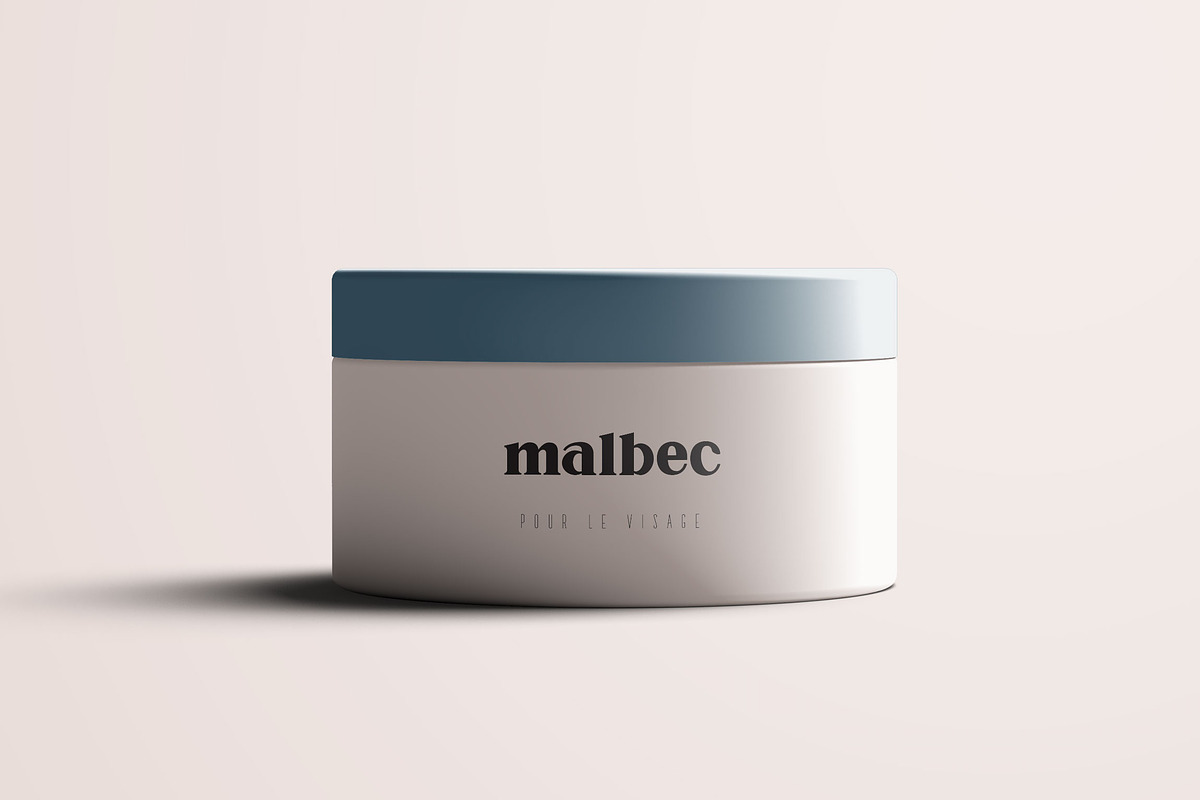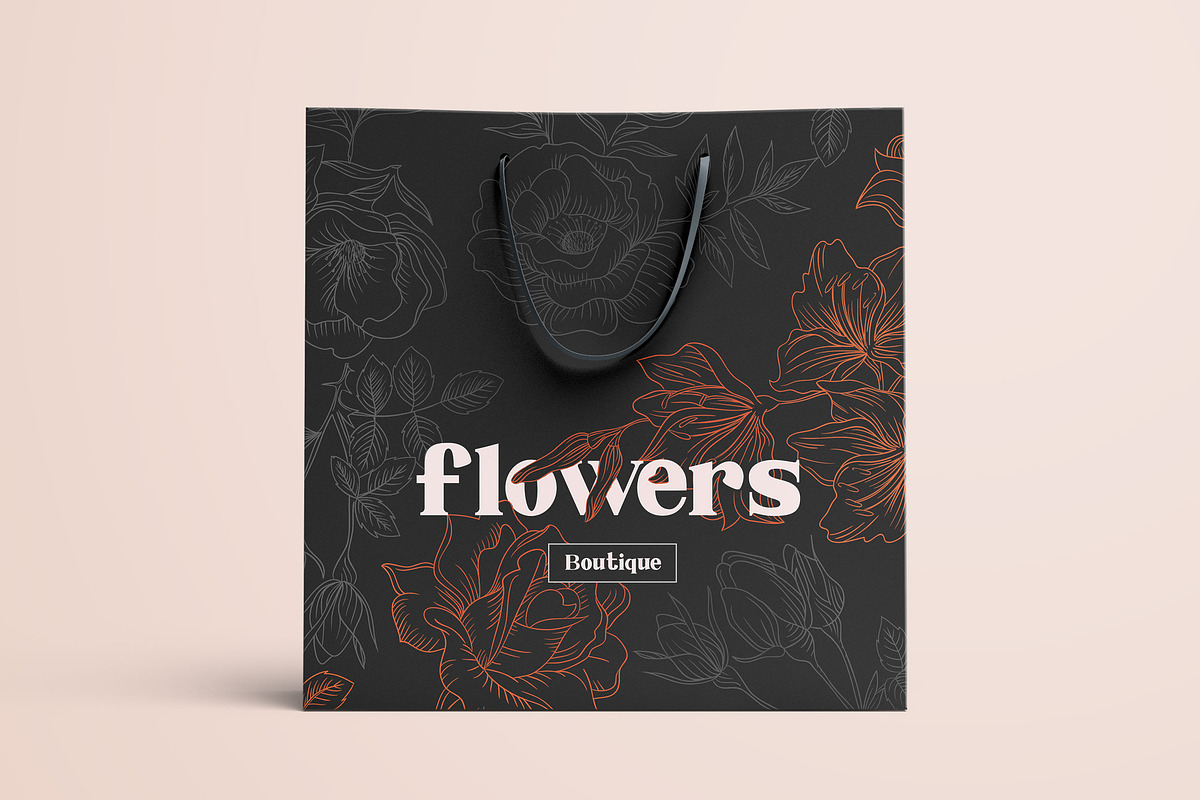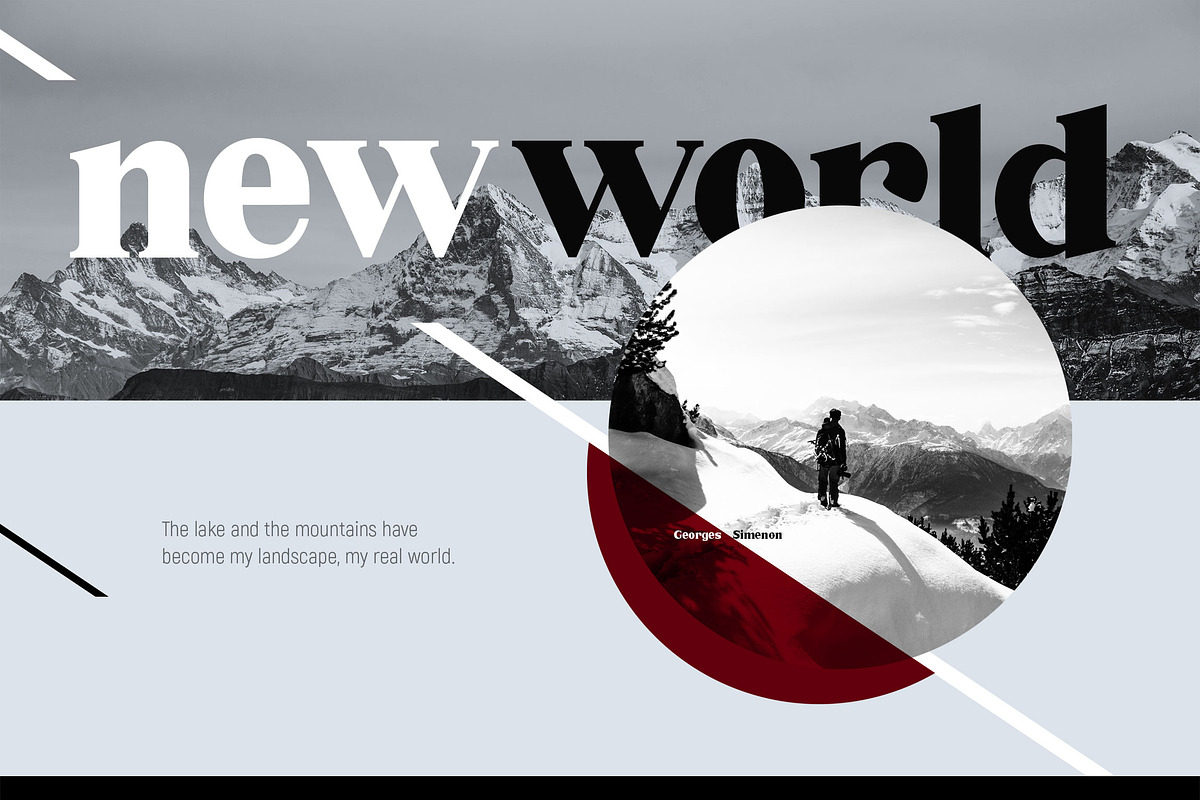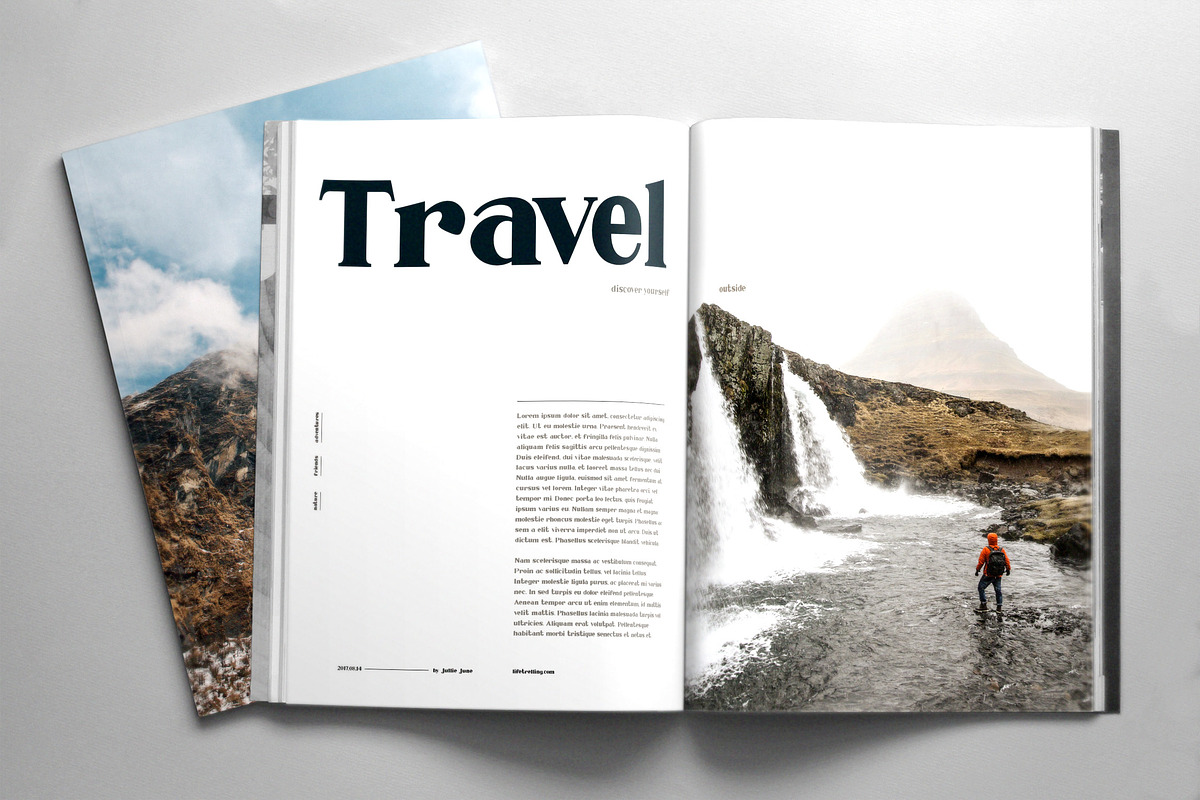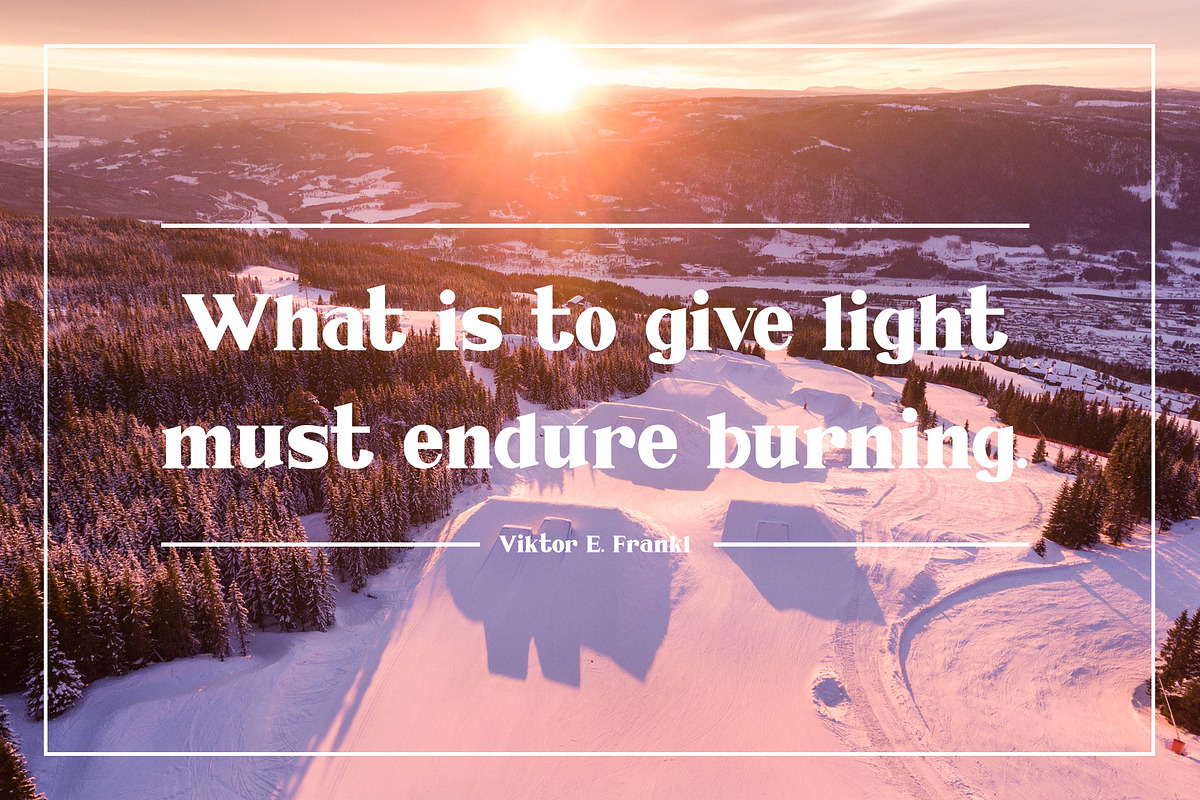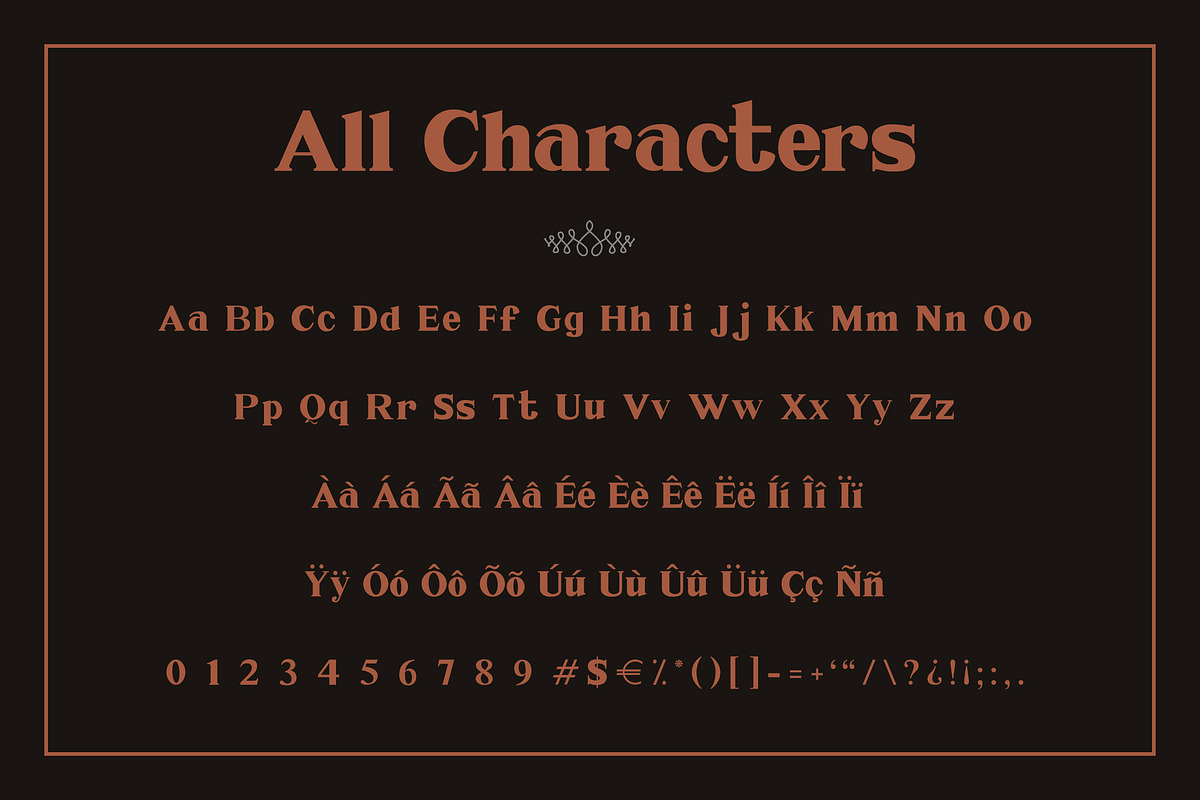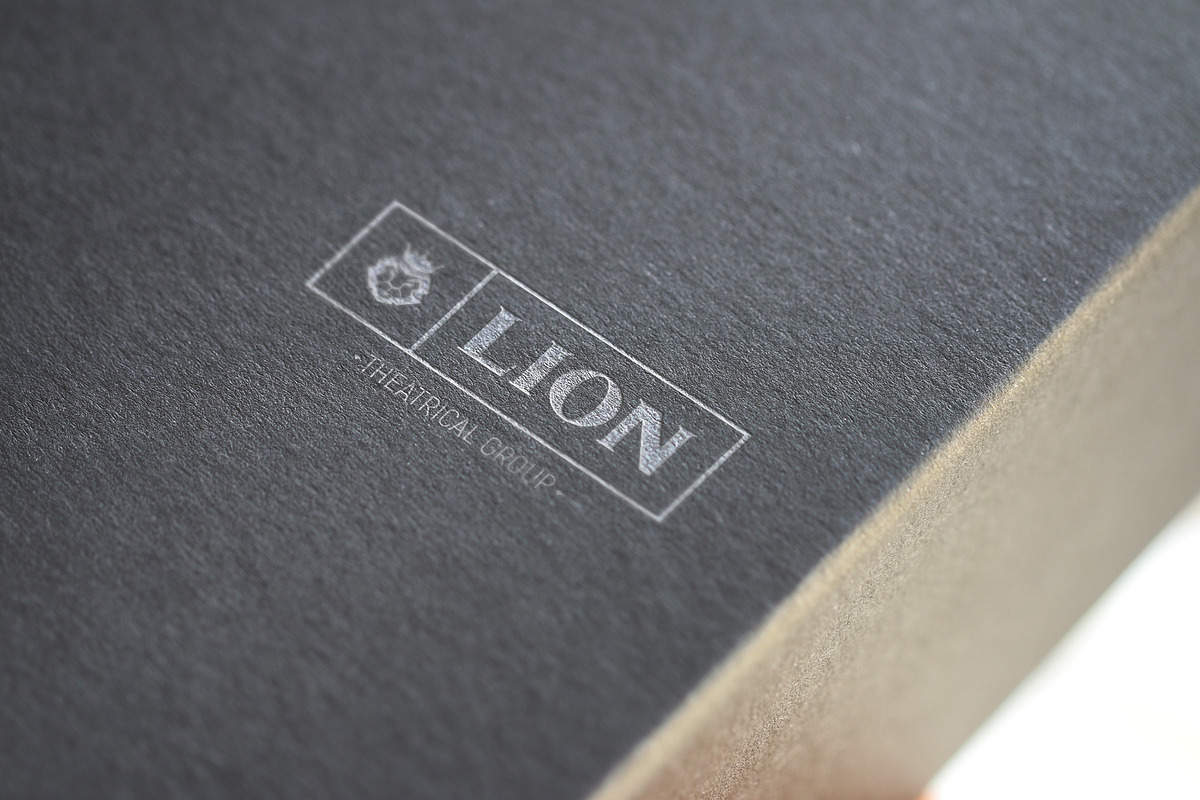
Millenia - Serif Font
Millenia, a captivating shorty serif font that combines beautiful curves with a touch of elegance. This typeface is perfect for creating a feminine editorial look, designing stunning logos, and crafting eye-catching packaging that leaves a lasting impression.
With its unique shorty serif style, Millenia strikes the perfect balance between sophistication and charm. The carefully crafted curves of each letter create a graceful flow, adding a touch of grace to any project.
Millenia's versatility shines through its uppercase and lowercase options, allowing you to play with different combinations and create truly personalized designs. Let your creativity soar as you experiment with this font's captivating aesthetic.
Whether you're working on a magazine layout, branding materials, or product packaging, Millenia is here to elevate your designs. Its feminine appeal and attention to detail make it an ideal choice for projects that aim to captivate and inspire.
Experience the beauty of Millenia and unleash its graceful curves in your next design venture. Elevate your creations with this remarkable shorty serif font and let its exquisite charm bring your vision to life.